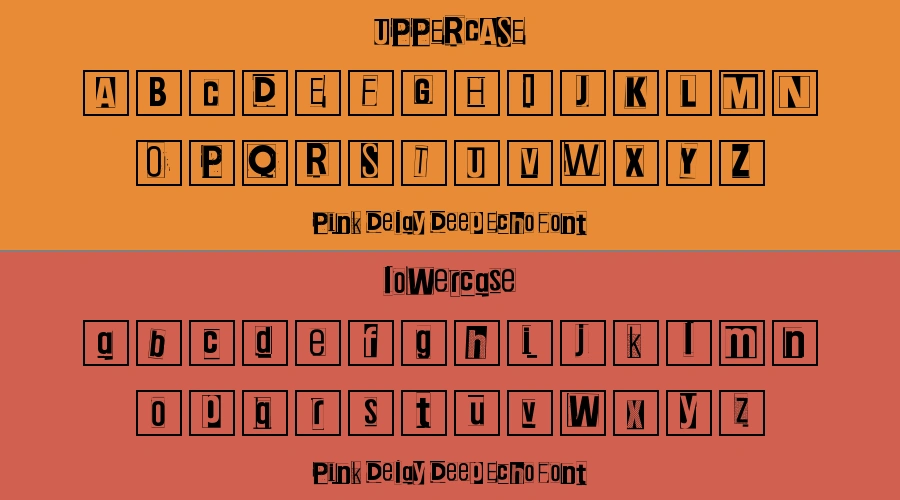
About Pink Delay Deep Echo Font
Pink Delay Deep Echo Font stands out for its distinctive combination of structural clarity and tradition. Ideal for ceremonial invitations, it provides the functionality and creative potential that professional projects demand. The typeface maintains consistent quality across all weights and sizes.
Key features include refined contextual forms and practical standard ligatures, enhancing typographic expression. In creative titles applications, Pink Delay Deep Echo Font demonstrates exceptional purchase influence. The stroke modulation and contemporary relevance contribute to its distinctive character and professional appeal.